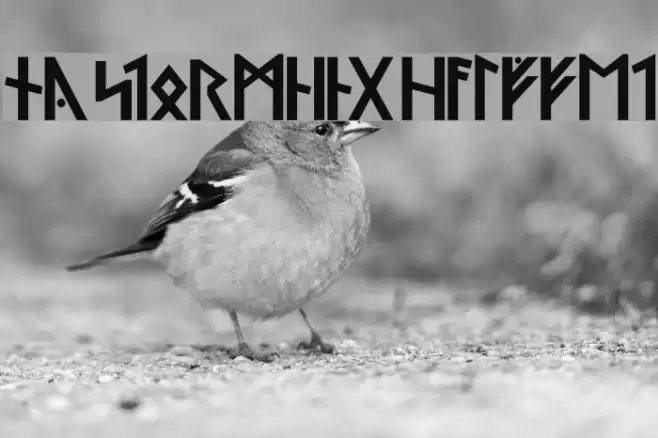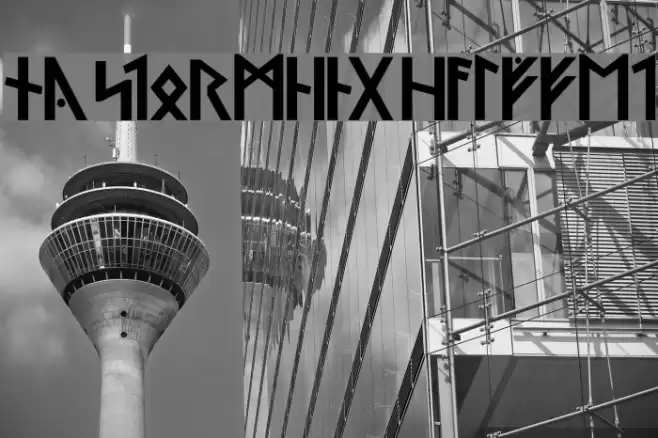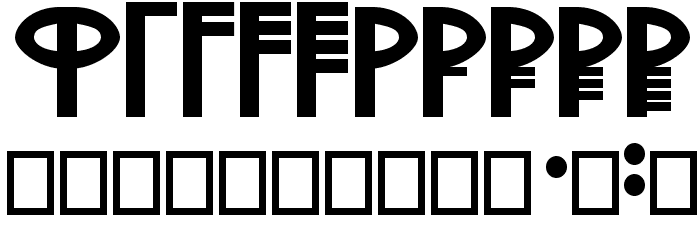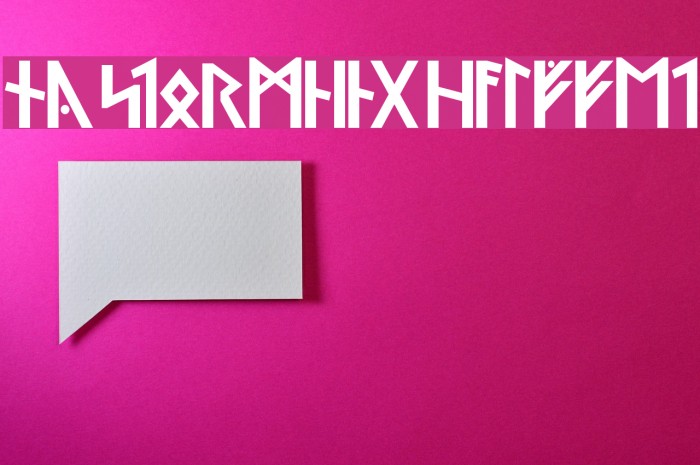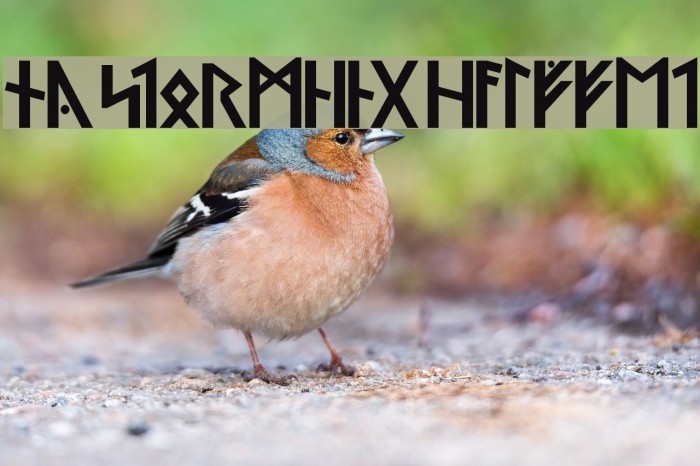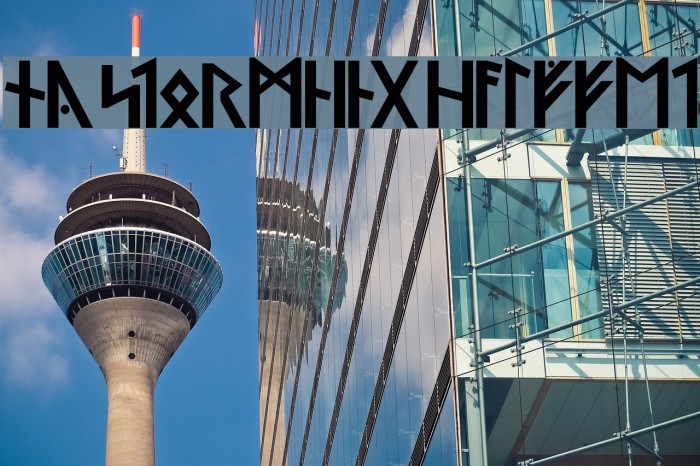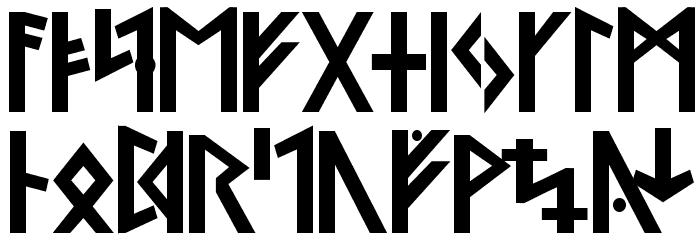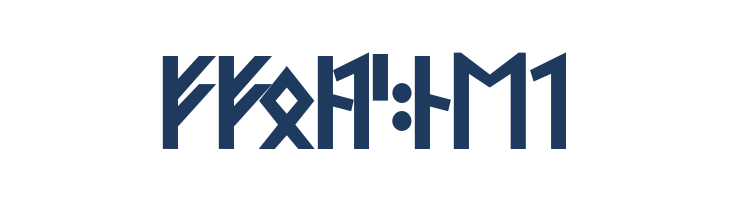
Ny Stormning Halvfet Font
Ny Stormning Halvfet Description
This font features a bold, angular design reminiscent of ancient runic alphabets. The characters are constructed with sharp, geometric lines and angles, giving them a distinct, edgy appearance. The uppercase letters are particularly striking, with each character exhibiting unique, intricate patterns that evoke a sense of mystery and antiquity. The lowercase letters maintain the same angular style, ensuring consistency throughout the typeface. The numerals and special characters are similarly designed, integrating seamlessly with the overall aesthetic. This font's boldness and unique style make it ideal for projects that require a touch of historical or mythical flair.
A bold, angular font inspired by ancient runic alphabets, featuring sharp geometric lines from Uncategorized fonts.
- Proposed Projects: Ideal for fantasy-themed projects, historical recreations, video game titles, or any design needing a mythical or ancient touch.